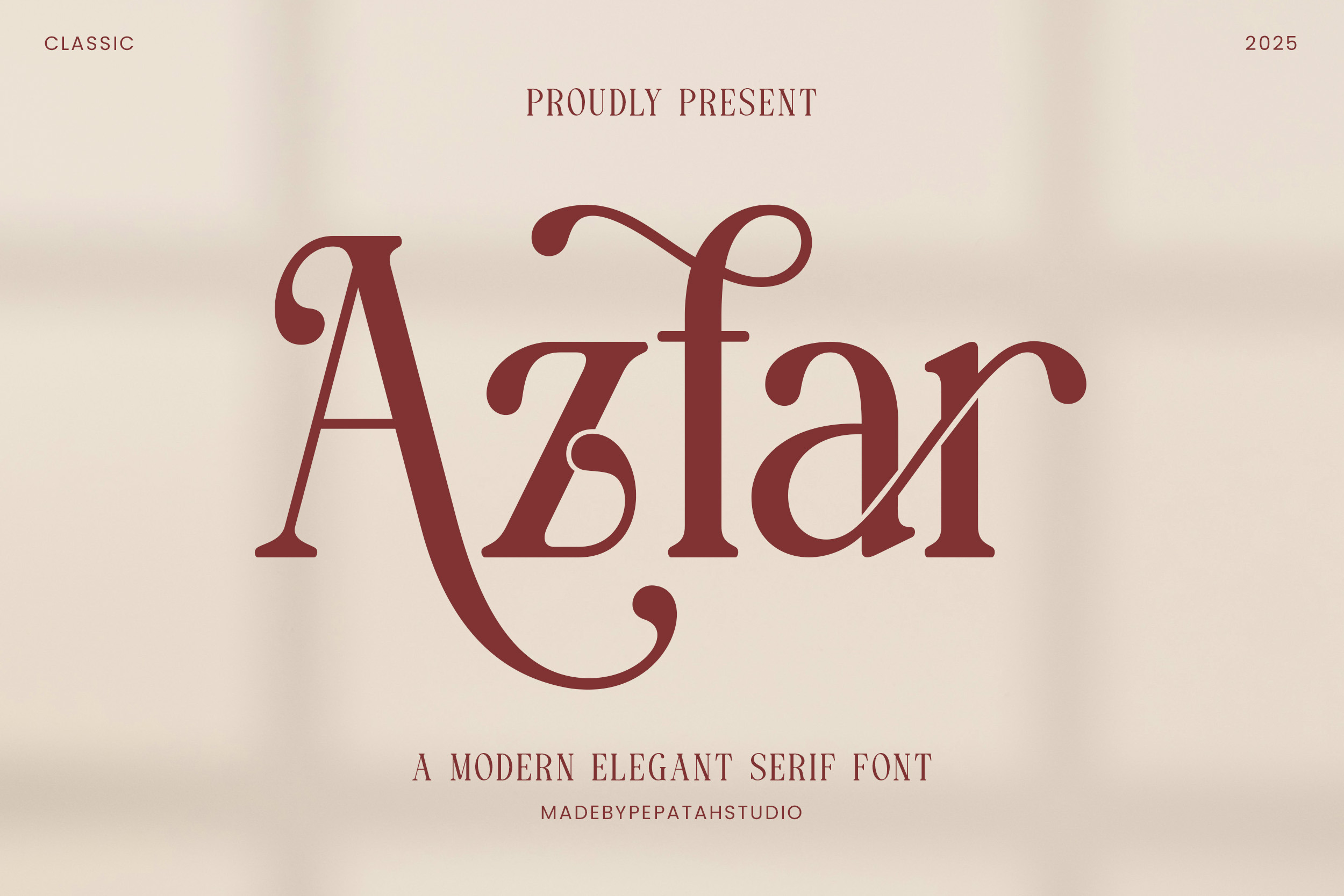
Azfar Serif Font
Azfar Frizky Elkhayr is more than just a font; it is a manifestation of vision, leadership, and hope. Inspired by the soul of a young child with the courage to dream big and the strength to lead with wisdom, this font is designed to convey meaningful, powerful, and inspiring messages.
This font reflects the character of a young leader who is confident, insightful, and capable of inspiring others through thoughtful actions and words. Every curve and line in this font represents the bravery to make great decisions and the conviction to chase a bright future.
Azfar Frizky Elkhayr is not just a decorative typeface but a symbol of limitless dreams and the desire to bring positive change to the world. With a modern yet elegant feel, this font is perfect for projects that need a touch of strong personality and timeless beauty.